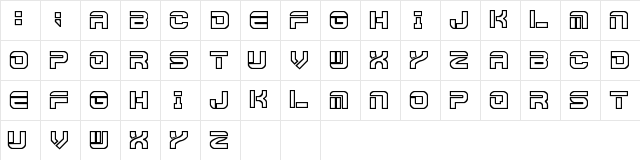
Futura Regular Free Font
Futura Regular
Foundry: Spacefish Productions
Designer: Martin Holm
Design Context for Futura
Futura has a distinctly futuristic character, with geometric precision and clean angles that feel at home in technology, gaming, and sci-fi contexts.